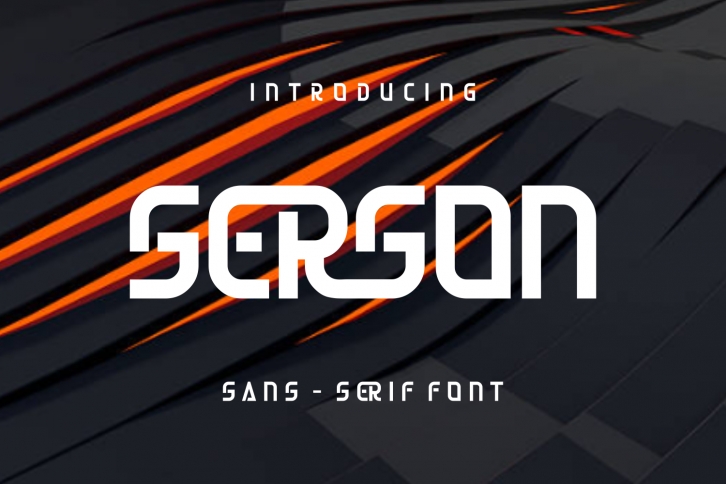
Serson is a cool and unique display font. Fall in love with its incredibly distinct and timeless style and use it to create spectacular designs! This font is PUA encoded which means you can access all the glyphs and ligatures with ease!